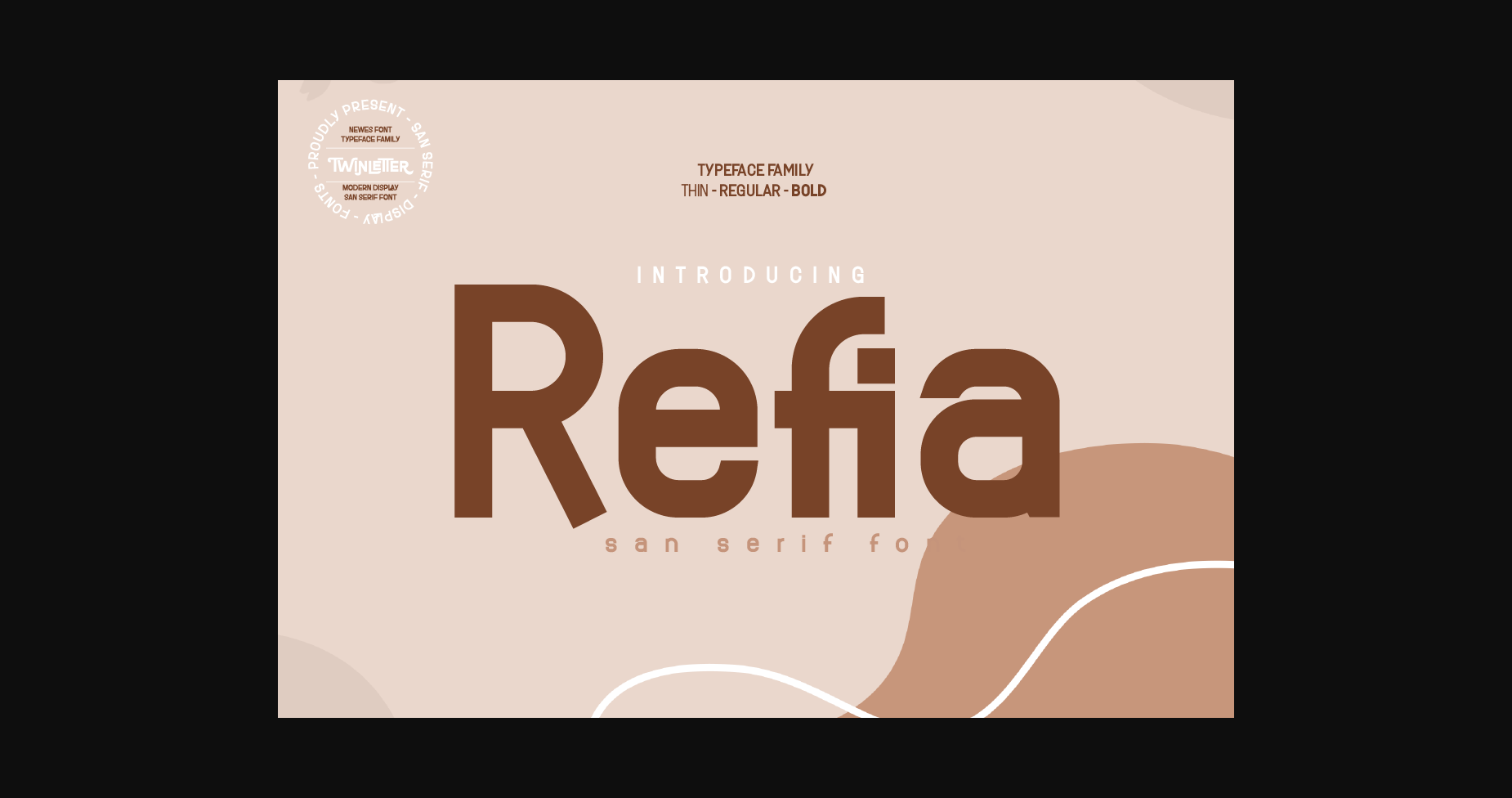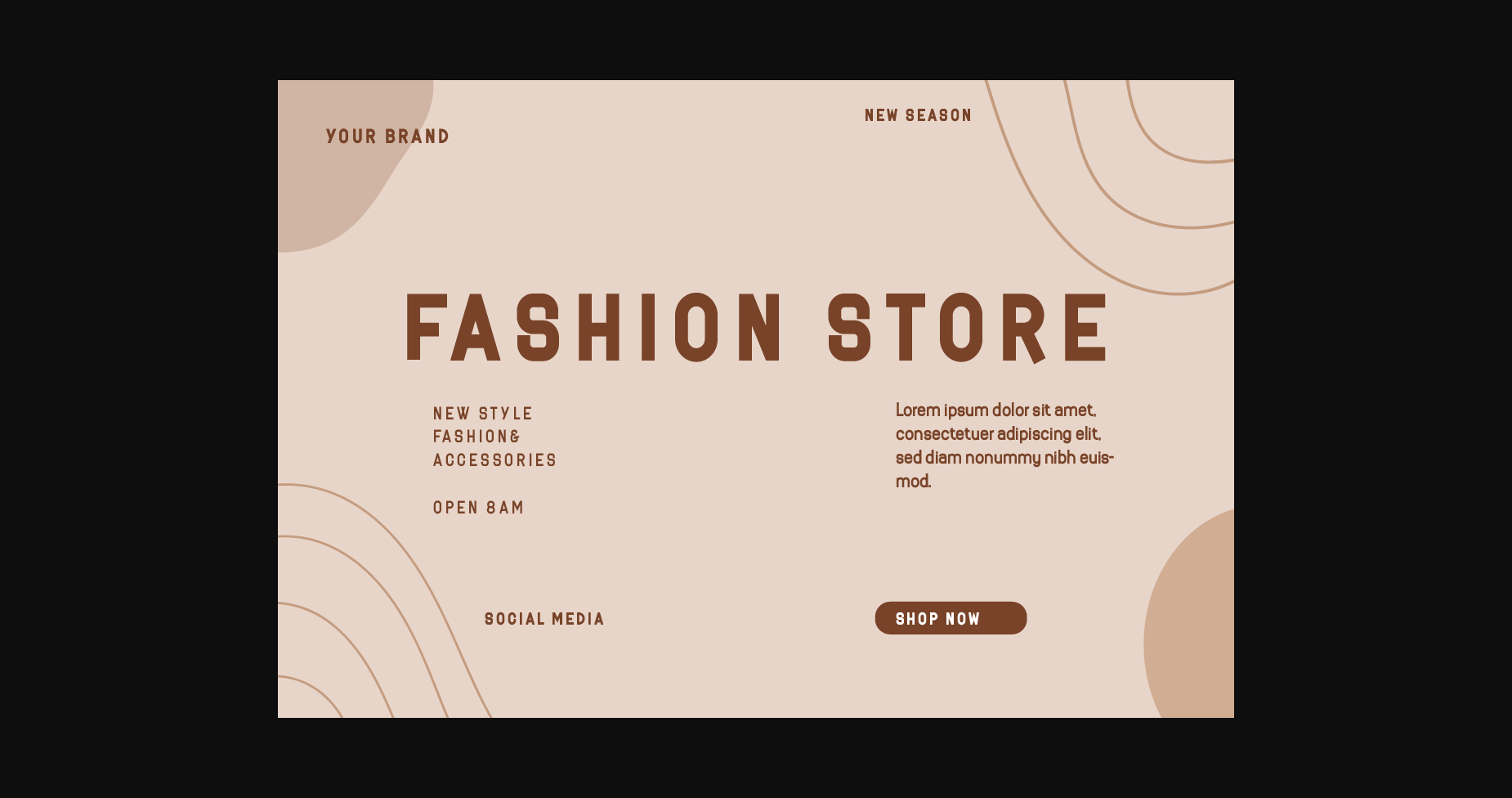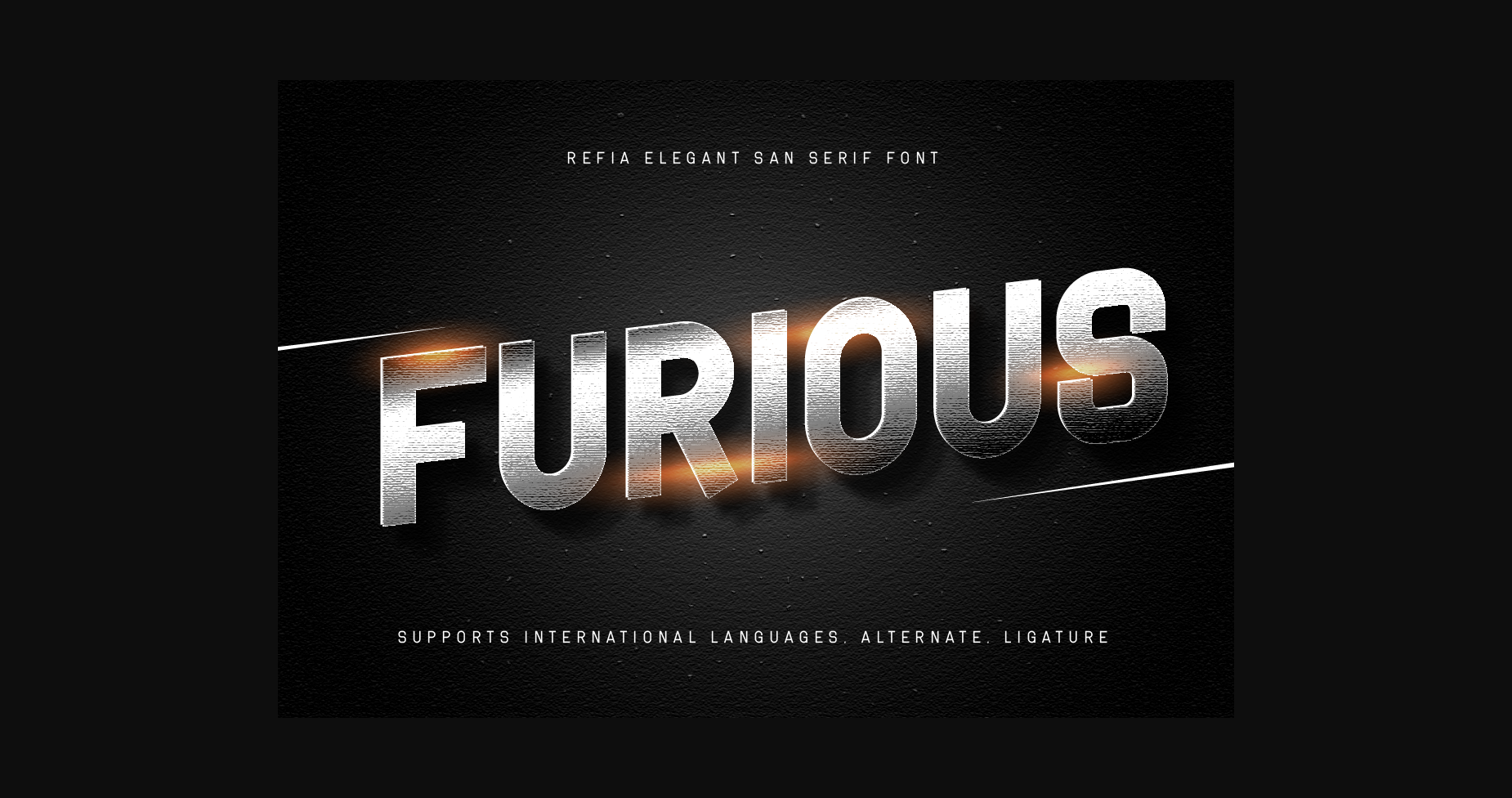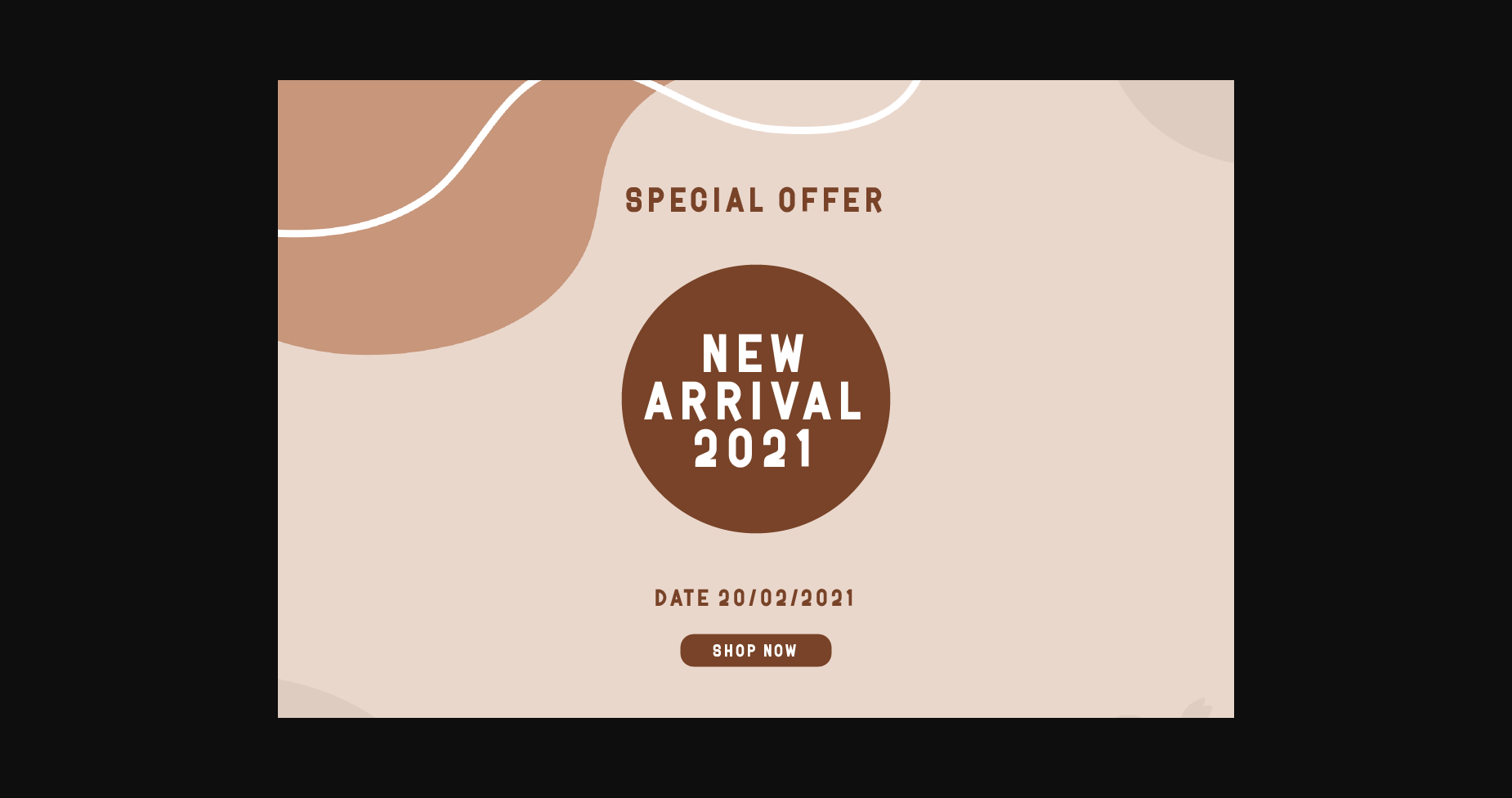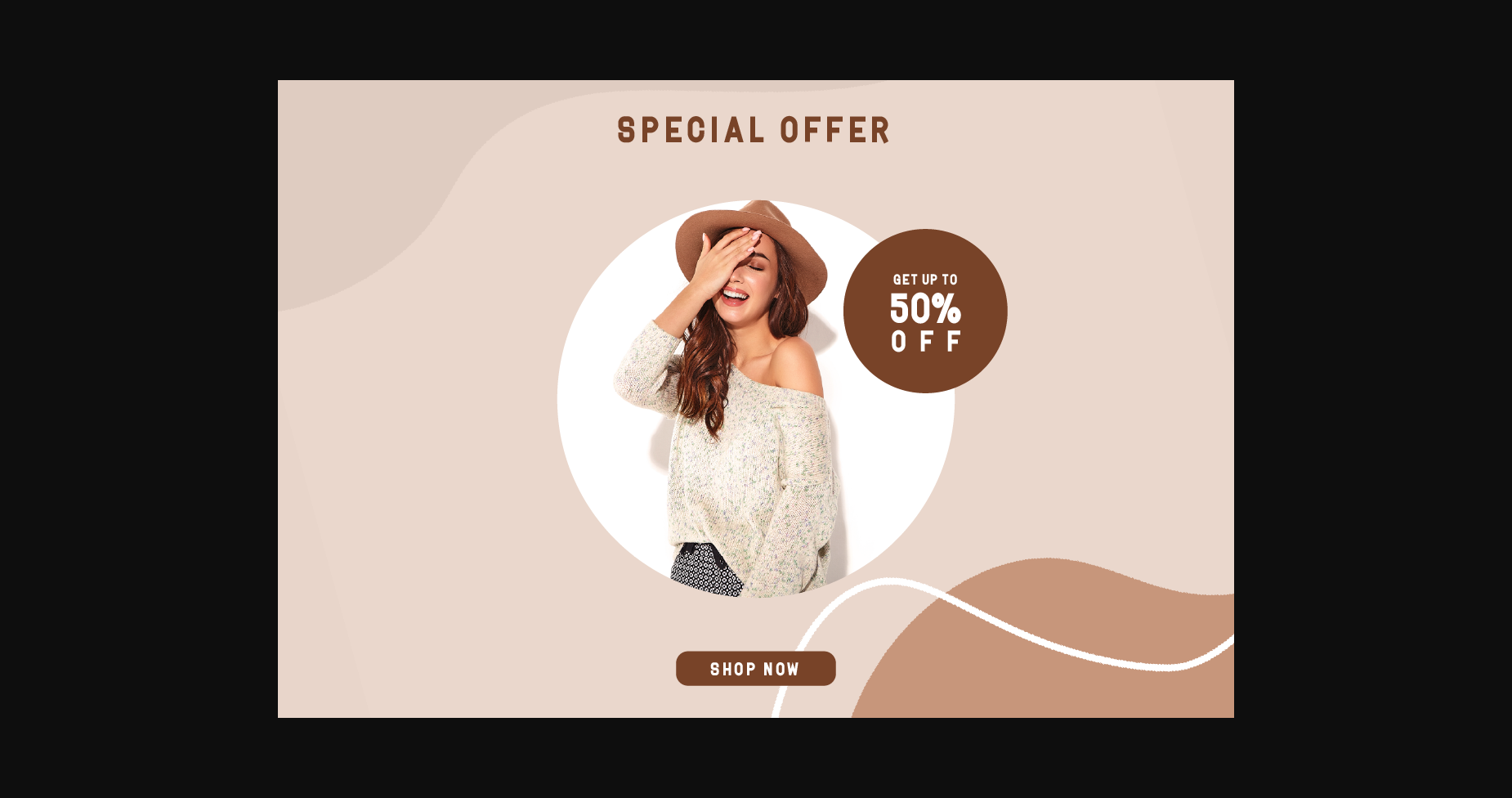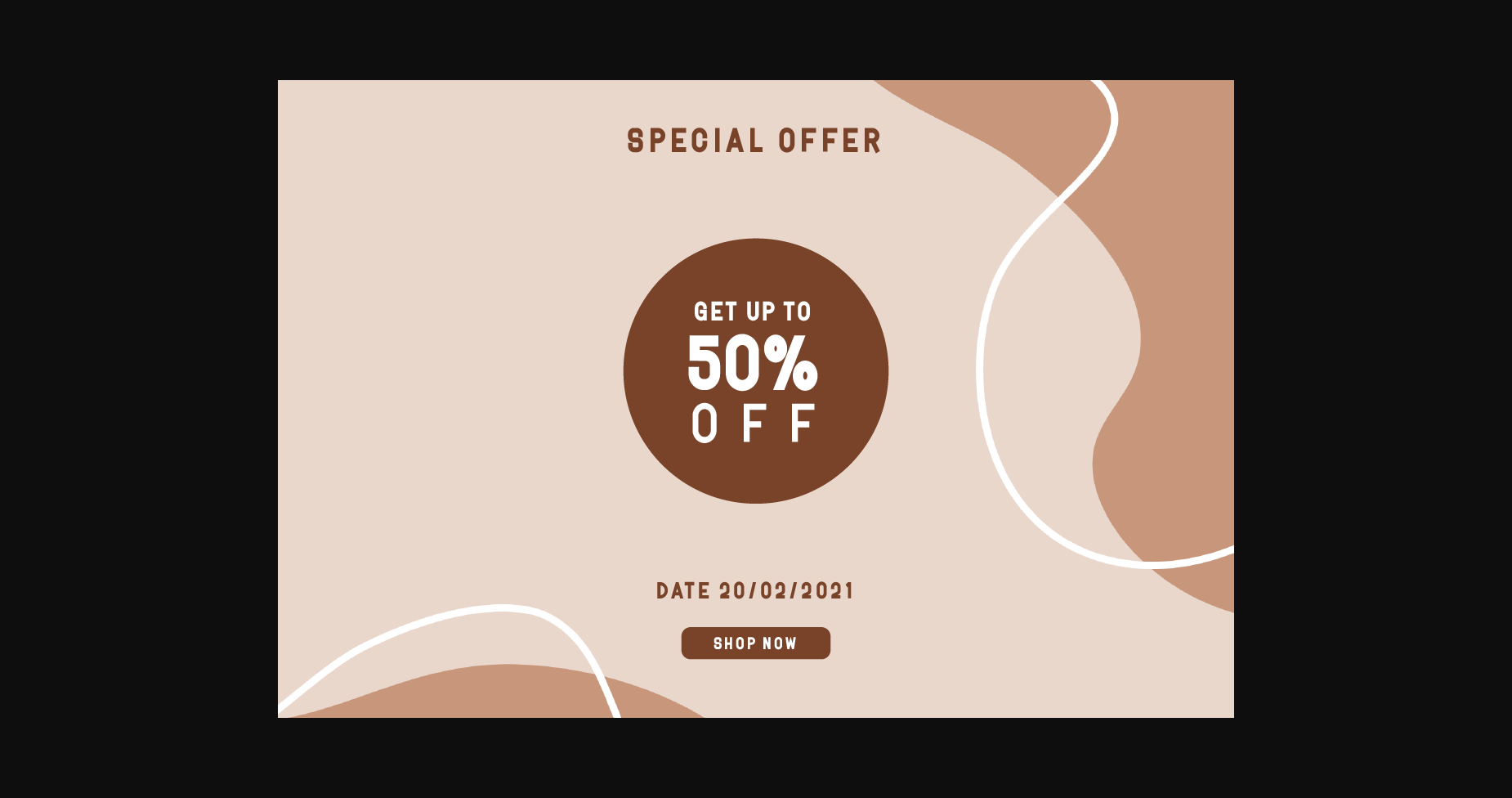
About Refia Font
Refia is a simple, techno looking and neat sans serif font. It can easily be matched to an incredibly large set of projects, so add it to your creative ideas and notice how it makes them stand out!